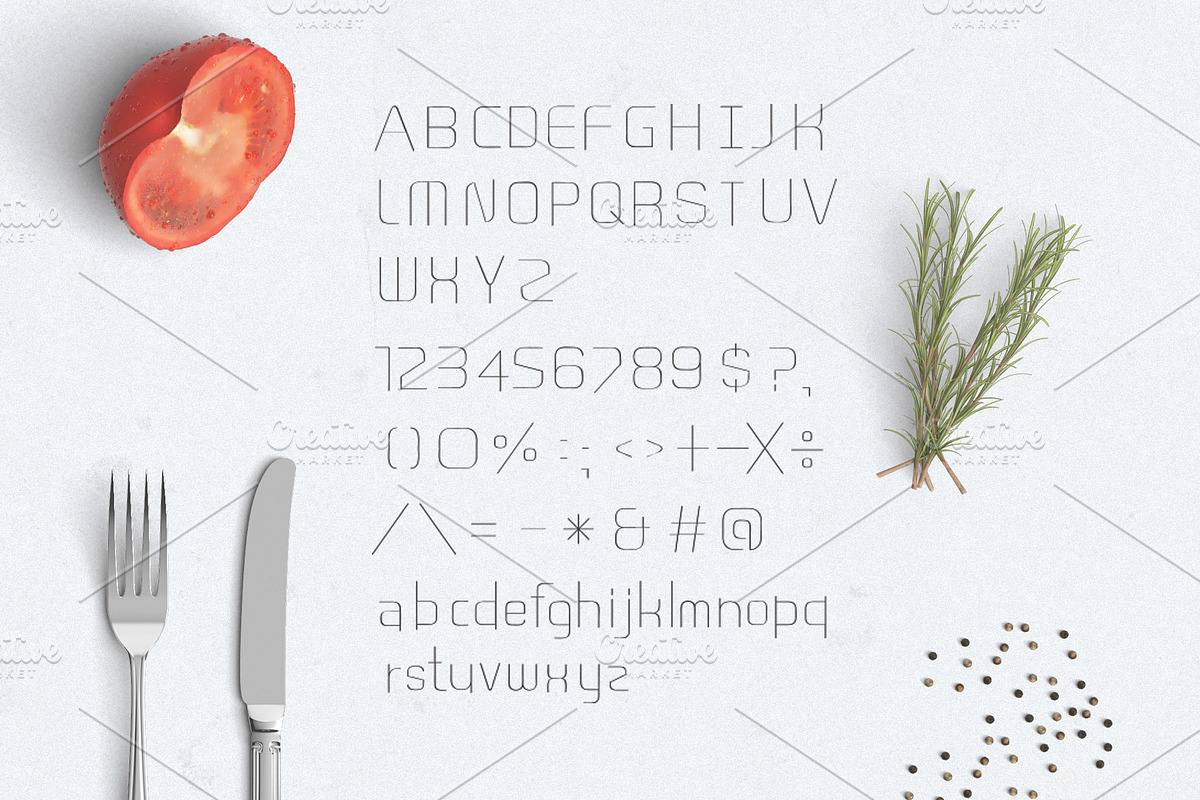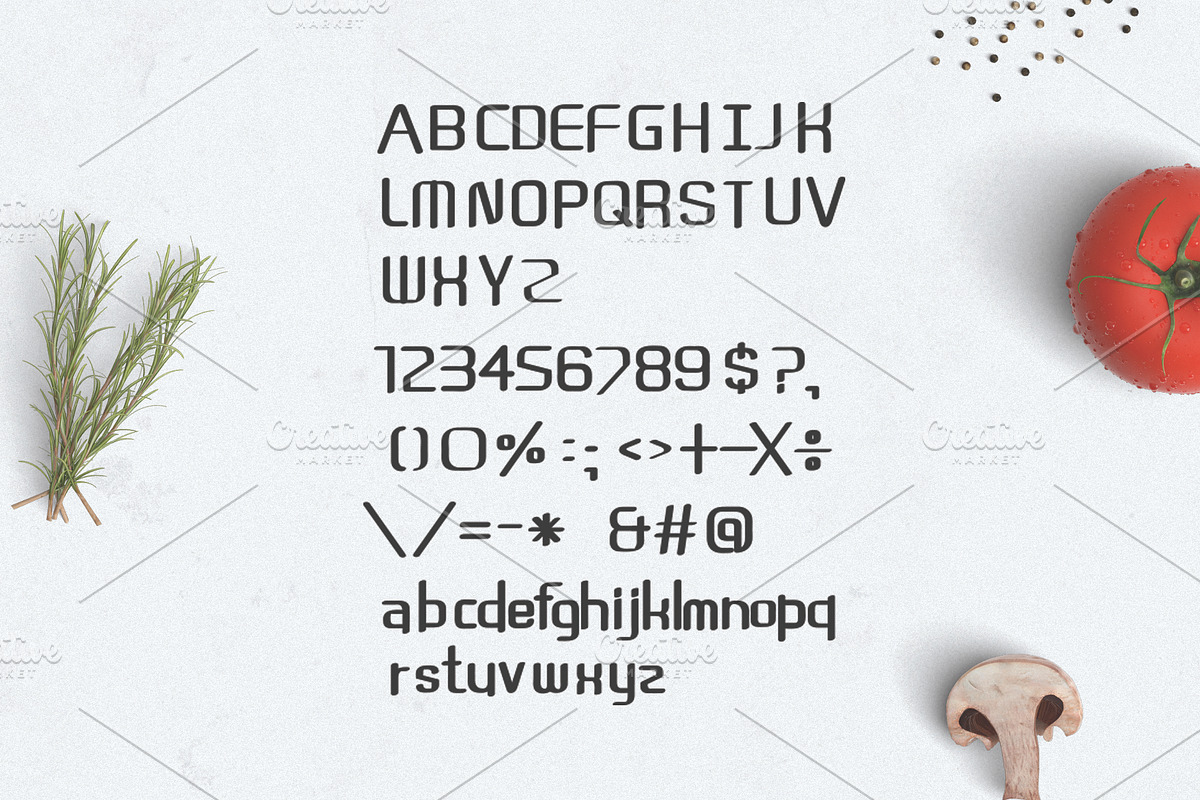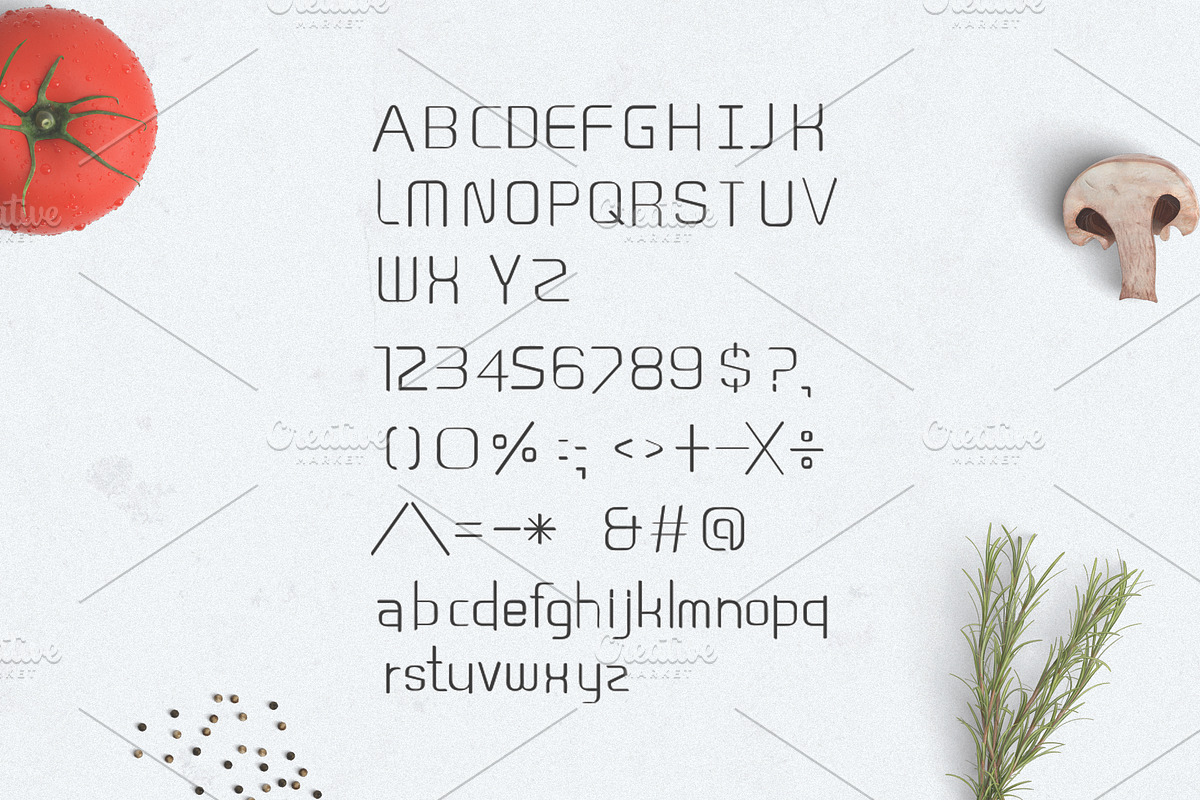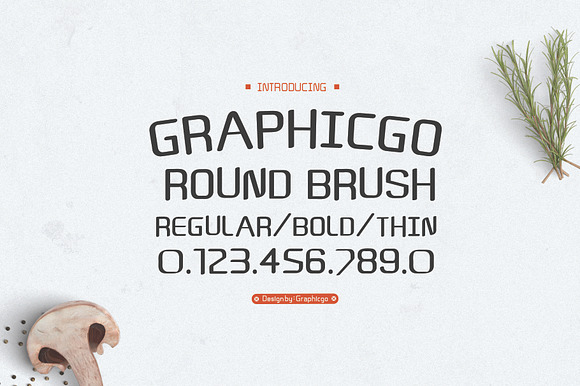
Graphicgo Round Brush Font
Graphicgo Round Brush Font is clean brush writing style. It 's perfect for organic products, cards, posters, wall art, branding, diy projects, greeting cards, labels, quotes, packaging, websites and much more.
Uppercase and Lowercase
Why Graphicgo Round Brush Font is worth a look
Graphicgo Round Brush Font by Graphicgo fits naturally into Branding, posters, packaging, typography.